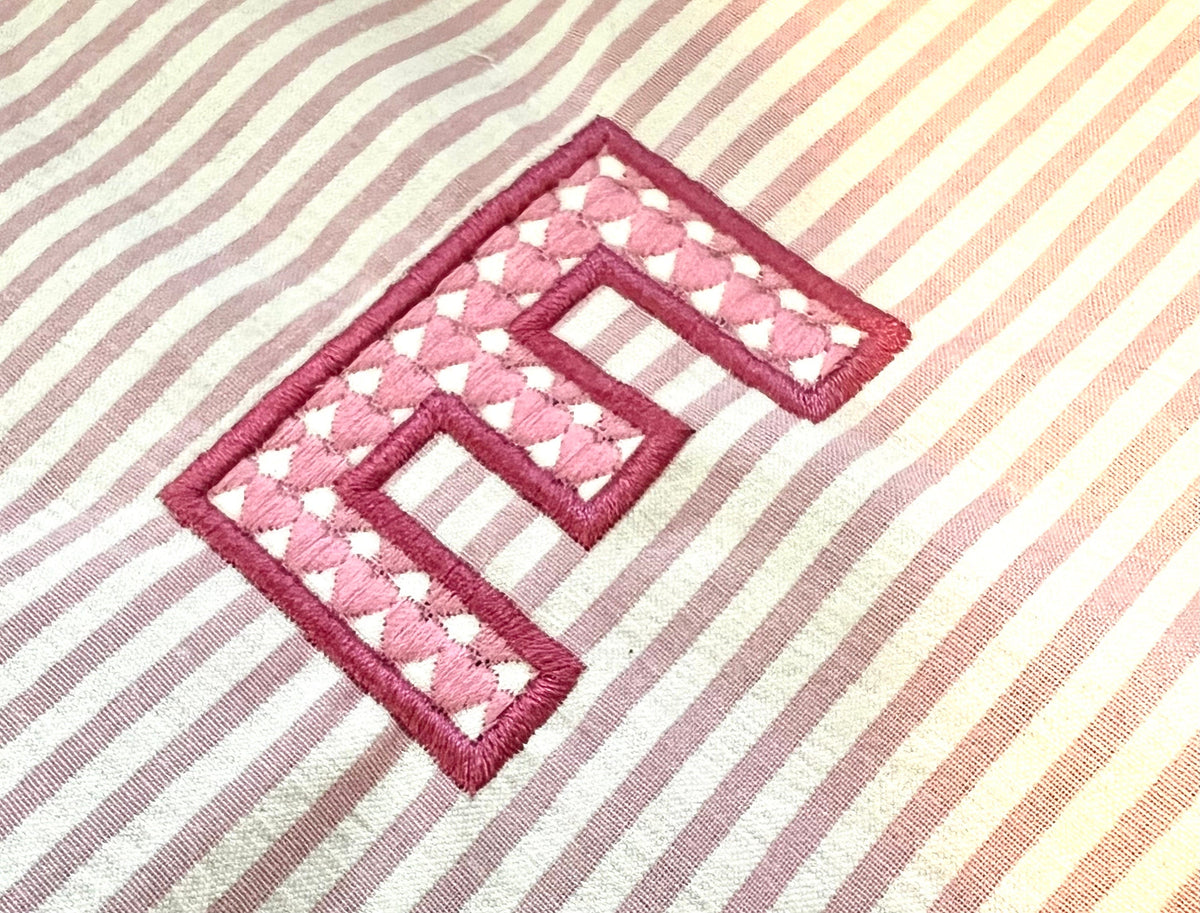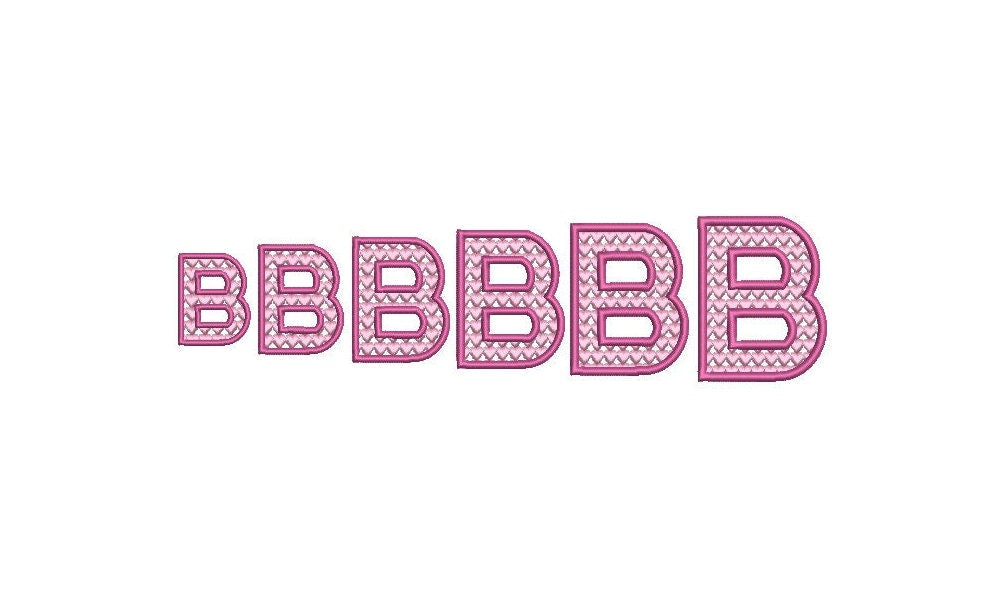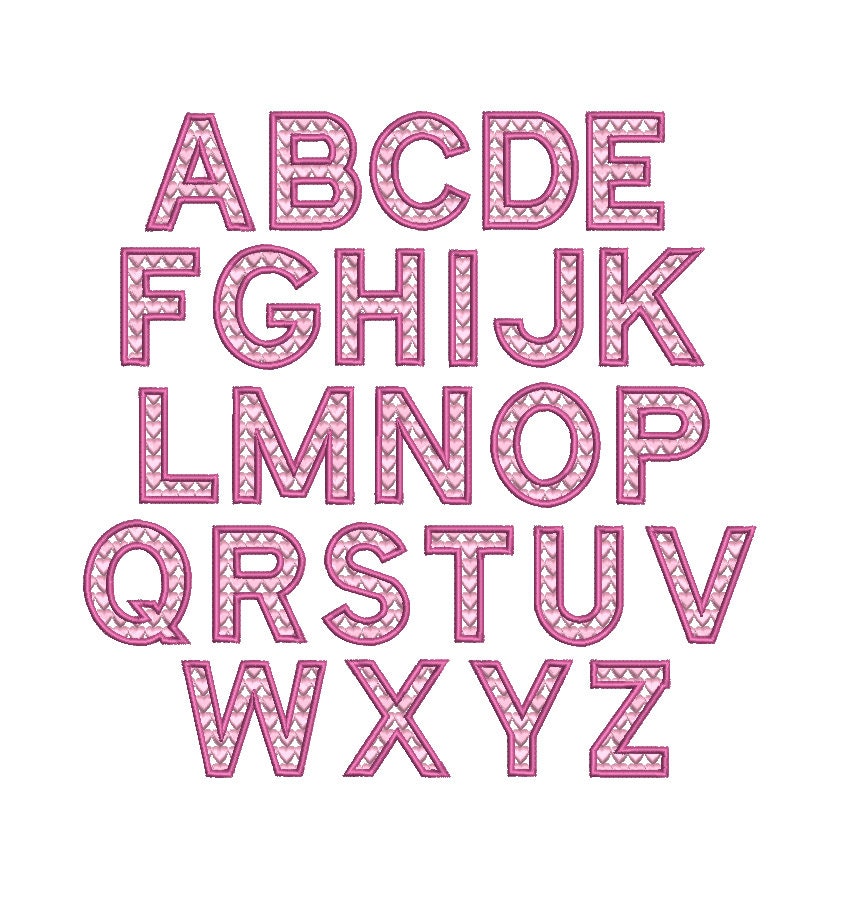
This is a DIGITAL only instant download Heart Motif Fill Block All Caps font machine embroidery design offered in 6 sizes. Super cute and perfect for embroidering on totes, jeans and more .
Design Tips:
- Ideal for thicker fabrics.